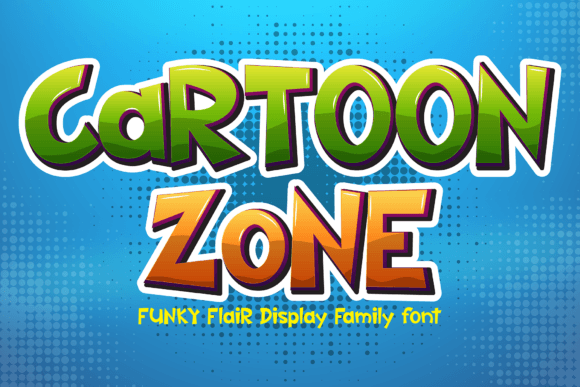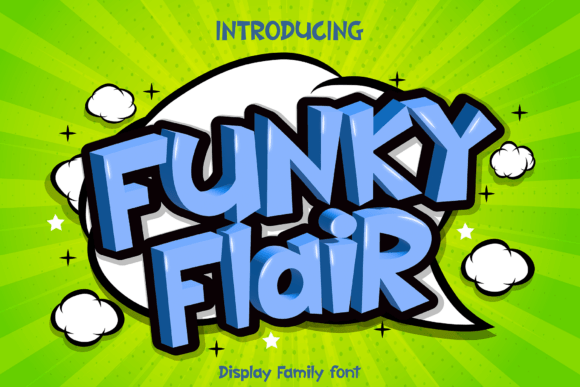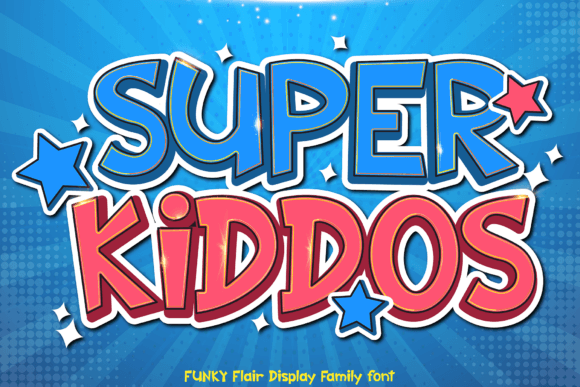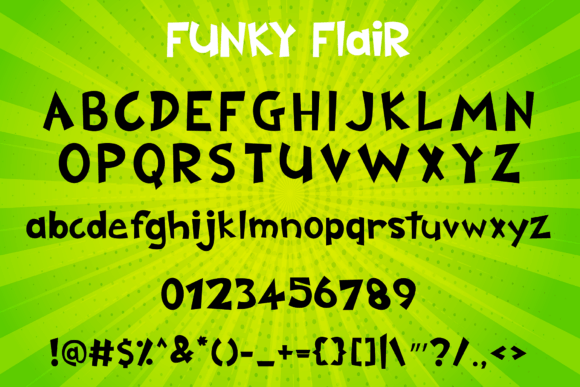
Funky Flair Font: A Playful Display Font for Eye-Catching Designs!
About the Funky Flair Font
Unleash your creativity with Funky Flair Font, a versatile font perfect for a wide range of applications. FUNKY FLAIR is a stylish, fun, and playful display font with a decorative touch. Unleash your creative flair with Funky Flair – a vibrant, pop-art inspired font that embodies playfulness and authenticity. It’s the perfect choice for eye-catching designs such as blog posts, logos, branding, ads, invitations, greeting cards, planners, photo albums, decorations, and more. Ideal for crafting, sublimation, and holiday projects, this whimsical font adds a cheeky touch to any project. Add it to your designs and enjoy the fun results!
Funky Flair Font Usage Examples
Funky Flair Font Example